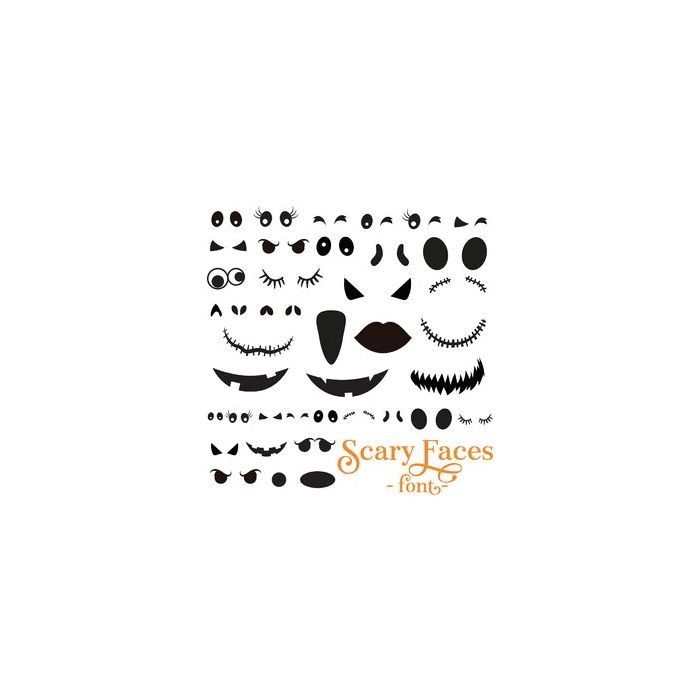
Scary Faces Font - Build your own scary monster or pumpkin faces with the individual elements - pairs of eyes, noses, mouths, pairs of eyes, eyebrows etc... All are allocated to keys and are also available via the glyphs panel / character panel.